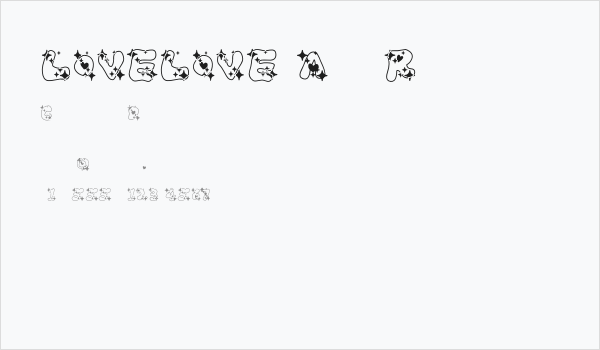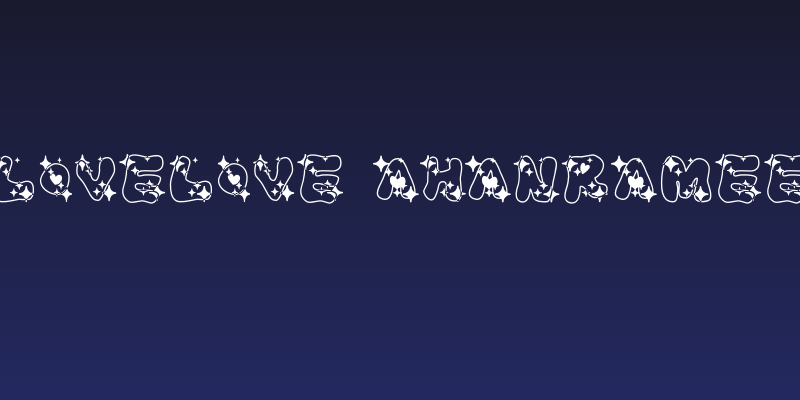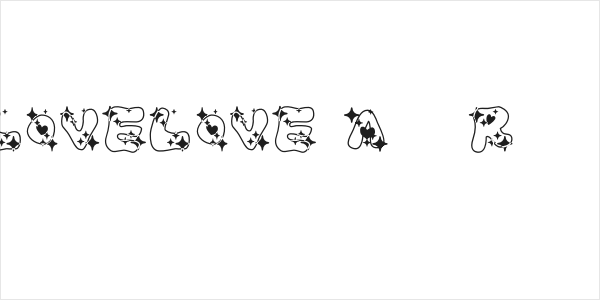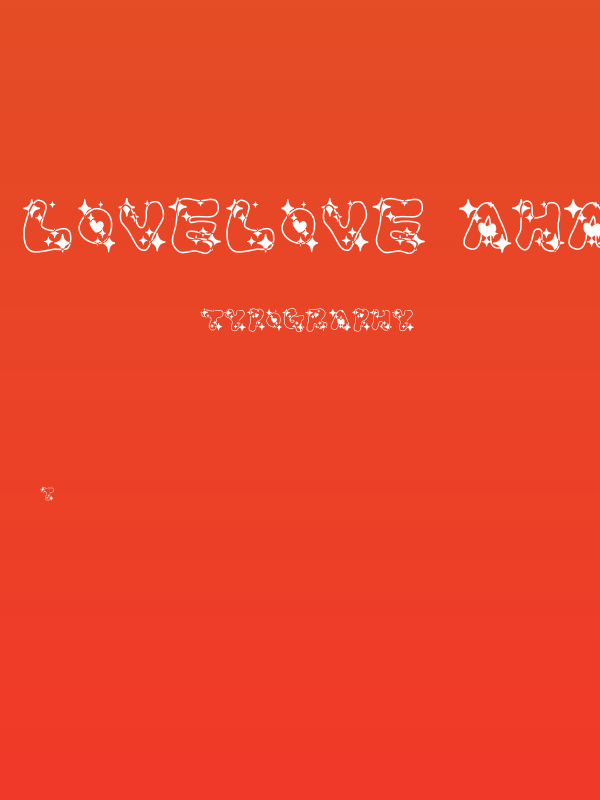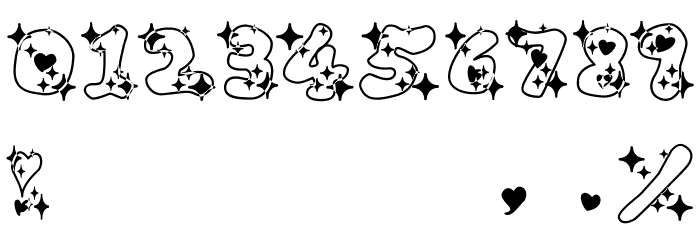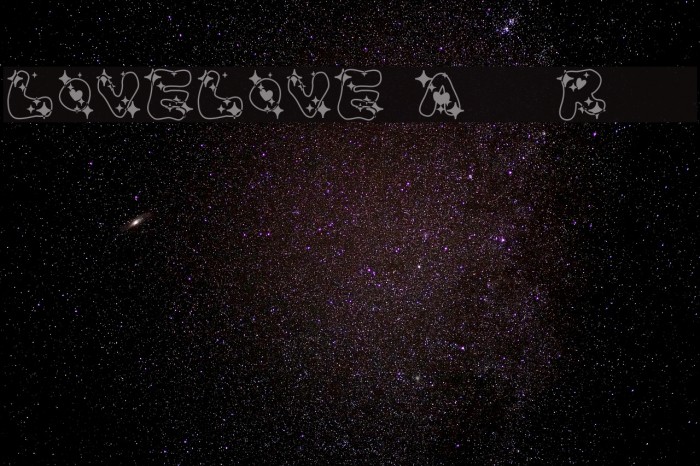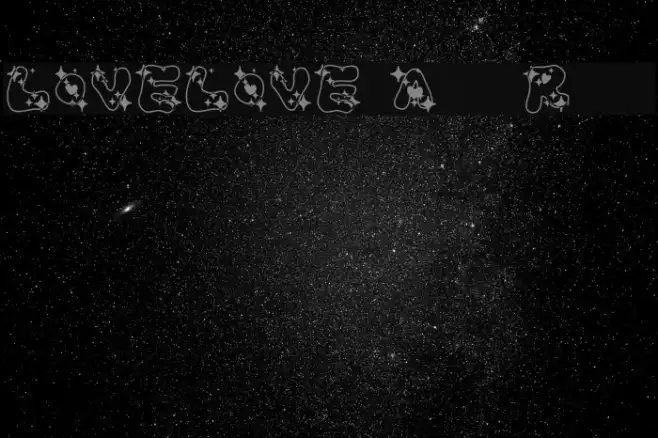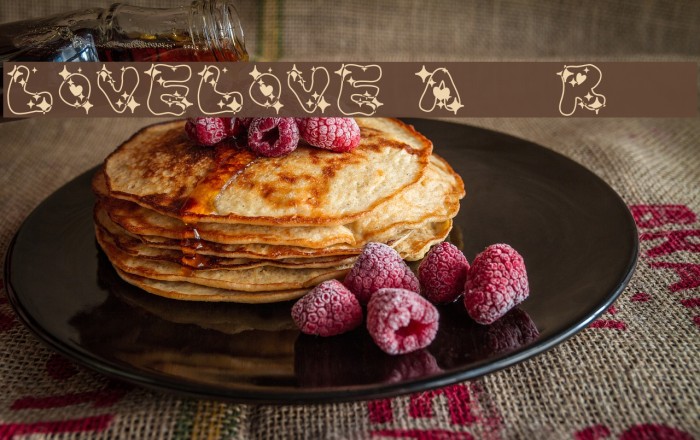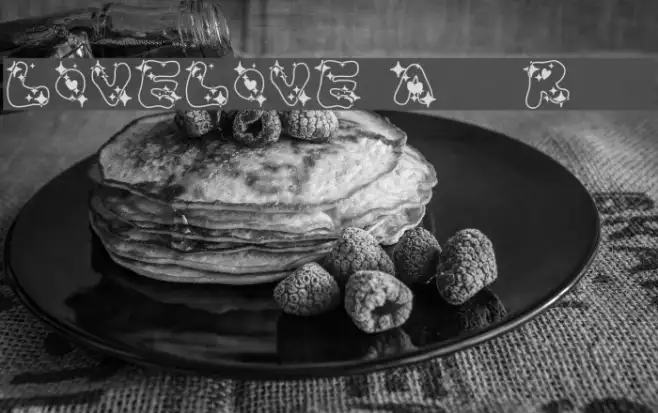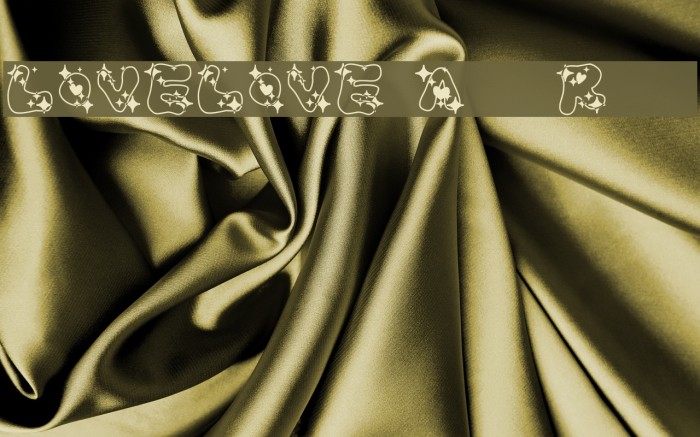
LOVELOVE_AhanRamee Font
LOVELOVE_AhanRamee Description
This playful and decorative font features a whimsical design with heart and star embellishments integrated into each character. The letters are bold and rounded, creating a friendly and approachable appearance. The unique style is consistent across uppercase, lowercase, and numeric characters, each adorned with charming symbols that add a touch of fun and creativity. The font's decorative nature makes it ideal for projects that require a lively and engaging aesthetic. Its distinct personality is perfect for capturing attention and conveying a sense of joy and playfulness.
| Overall Style | Playful, Whimsical |
| Use Case | Headlines, Logos, Decorative text |
| Proposed Projects | Ideal for children's books, greeting cards, party invitations, and playful branding. |